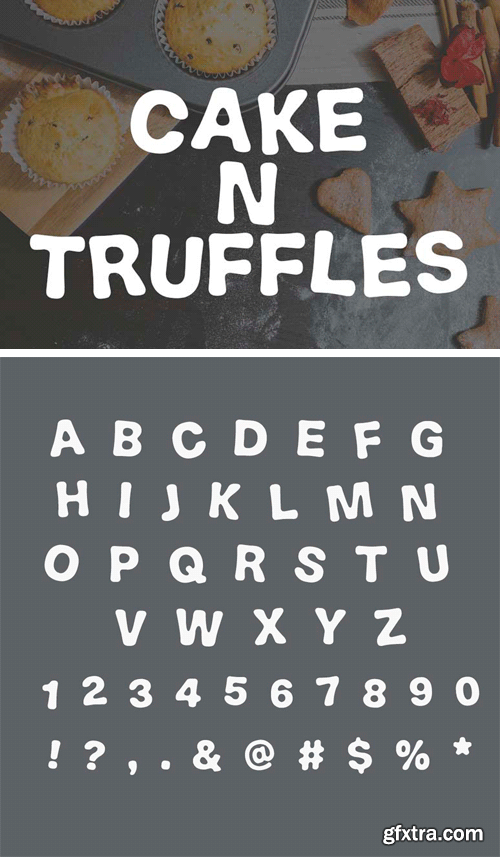
Cake N Truffles Font
Cake N Truffles is a rounded sans serif with funny style. It contains uppercase letters, numerals and symbols. Cake N Truffles suites well for handcrafted designs, kids goods, t-shirts prints, headlines and other creatives.